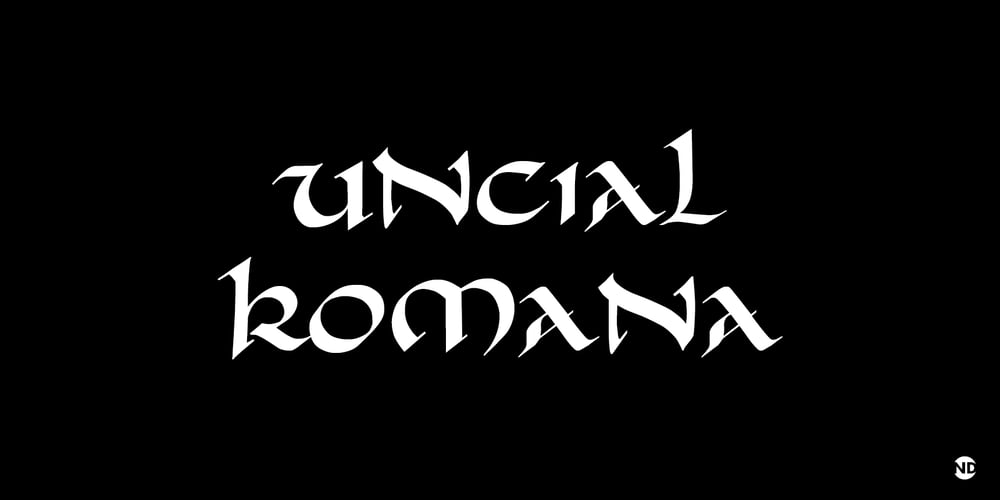
Uncial Romana ND Font Family was designed by Ricardo Rousselot and published by Neufville Digital. Uncial Romana ND contains 1 styles and family package options. There are many Uncial types in the type catalogues around the world, but most of them have a rough and stiff appearance. The Roman Uncial ND by Ricardo Rousselot stands out for the realism of its strokes, which look as if they are handwritten, bringing freshness and authenticity to its applications.Uncial Romana is a Trademark of BauerTypes SL